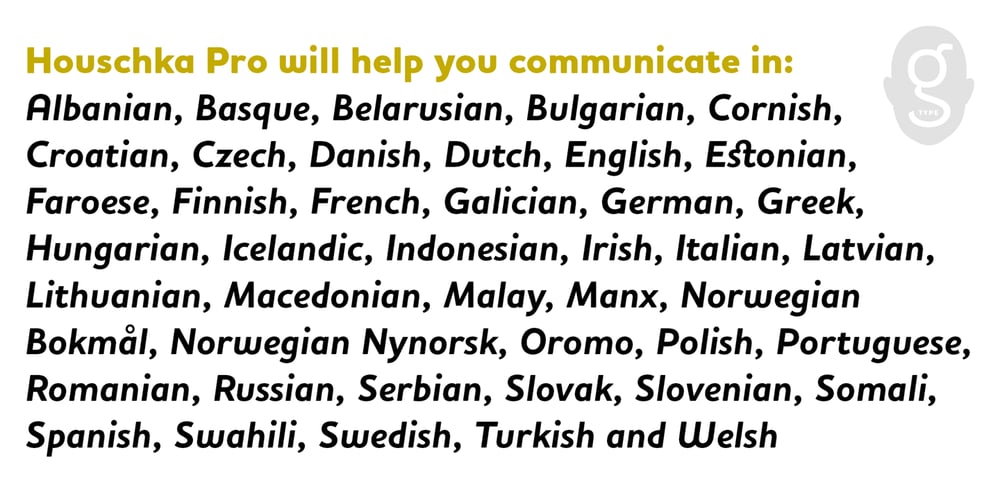
Houschka Pro Font Family was designed by Nick Cooke and published by G-Type. Houschka Pro contains 12 styles and family package options. Houschka was named after Georg Houschka, a sadly defunct confectioner’s shop in Salzburg, Austria, which had a wonderful 1930’s frontage and distinctively rounded letterforms in the sign above the door. Houschka Pro is the follow up to the original Houschka type family which first appeared back in 1999. Character shapes have been improved, kerning and spacing refined, and OpenType features include CE, Baltic, Turkish & Cyrillic language support plus small caps, 3 stylistic sets, contextual alternates, ligatures and 4 sets of numerals. Houschka is a clean and legible modern sans serif typeface which shares the humanist qualities of Gill Sans and Johnston but retains a uniquely charming character of its own (particularly in signature glyphs A, G, Q, W, u & w). The monolinear structure, rounded corners and rolling curves give Houschka a soft and friendly appearance. Houschka Alt Pro is a carbon copy of the Houschka Pro family with one key difference: the rounded signature glyphs A & W on the default positions swap places with their straight alternates.